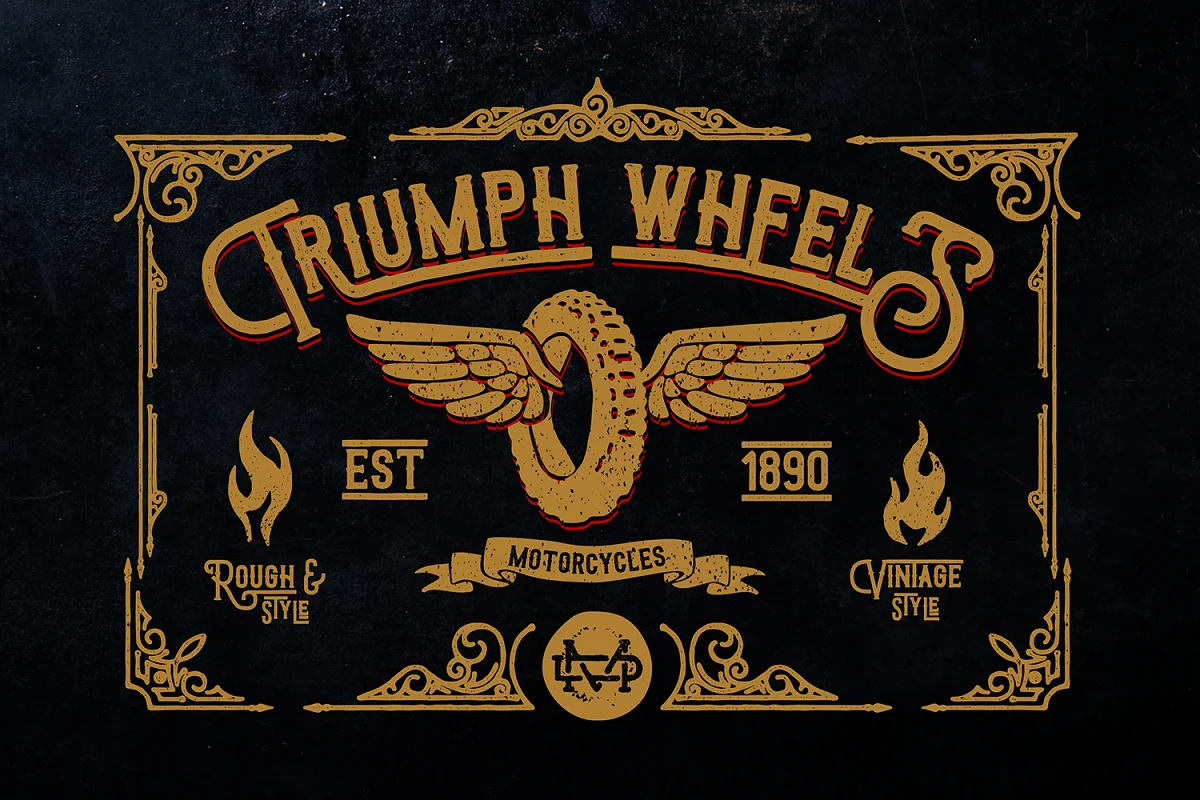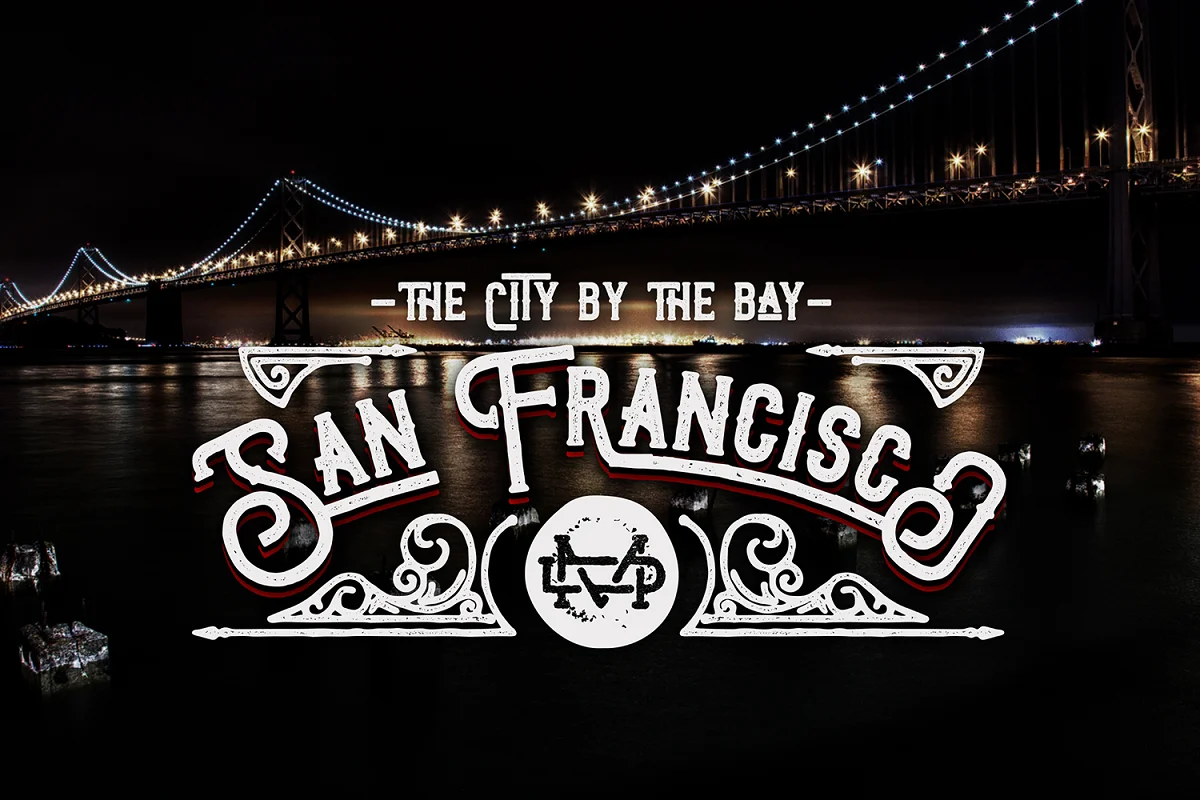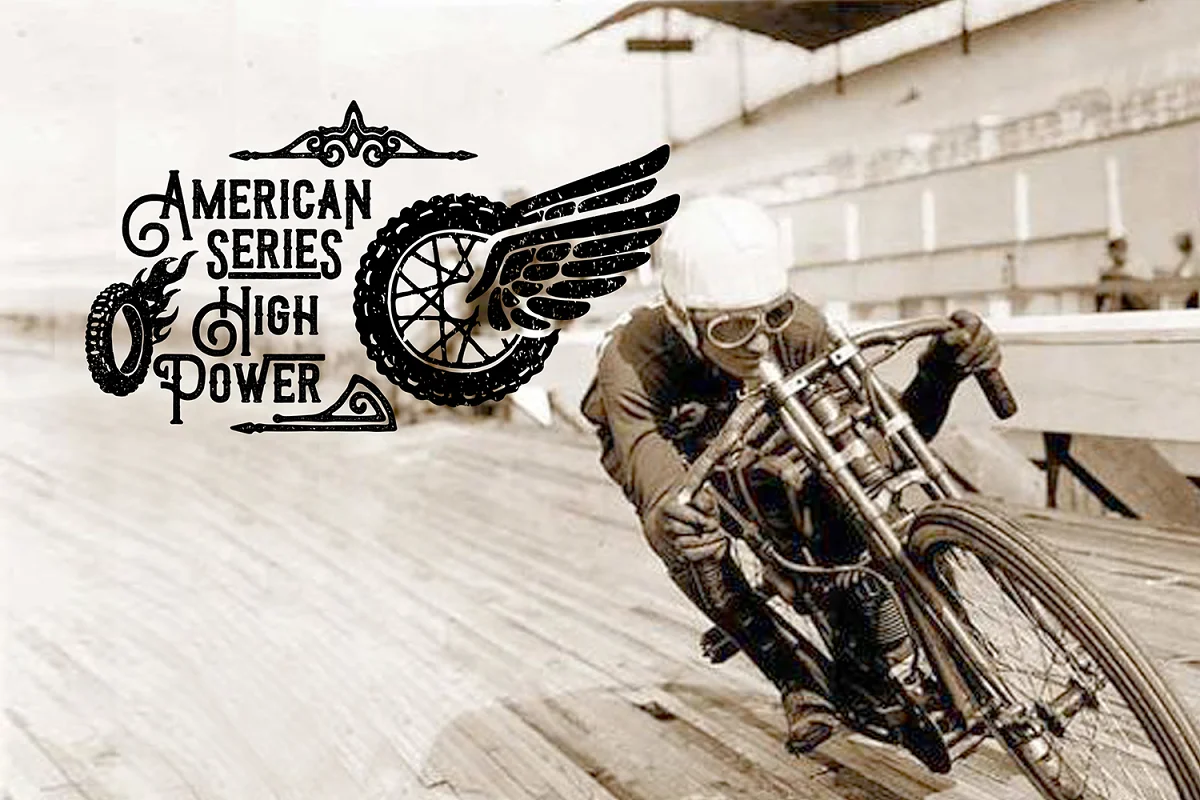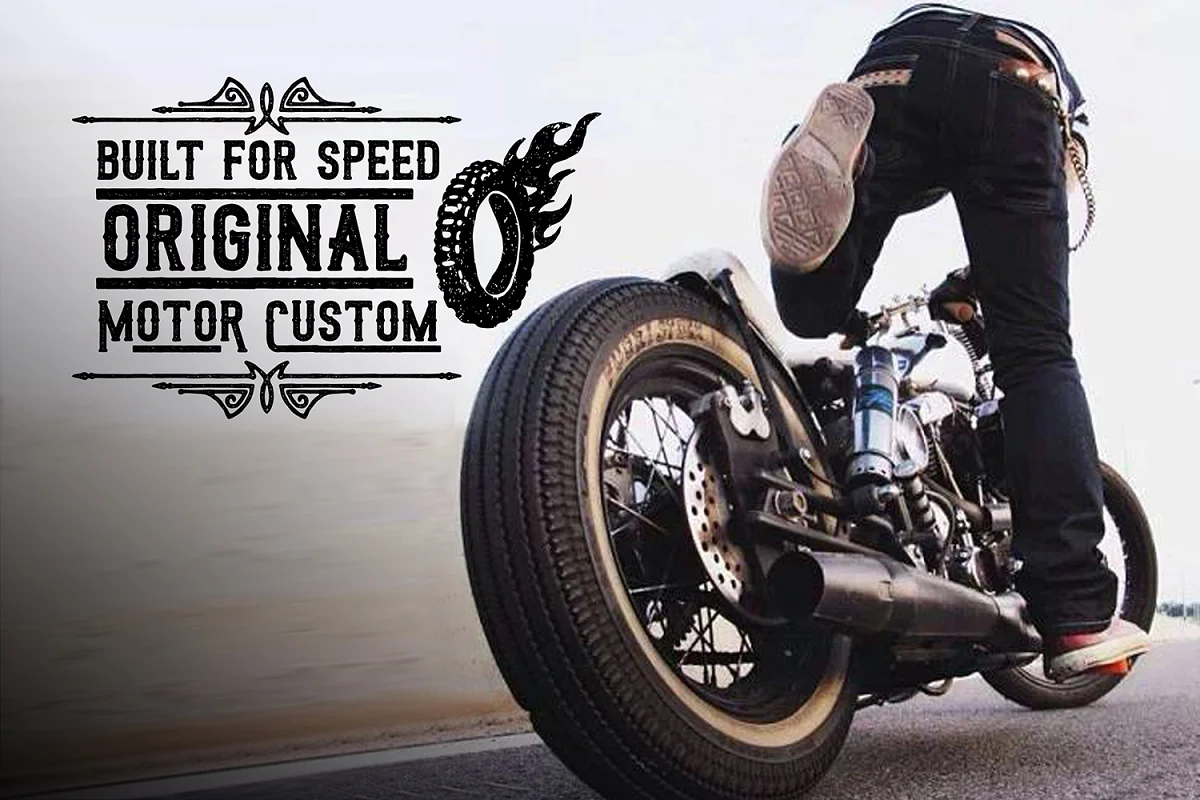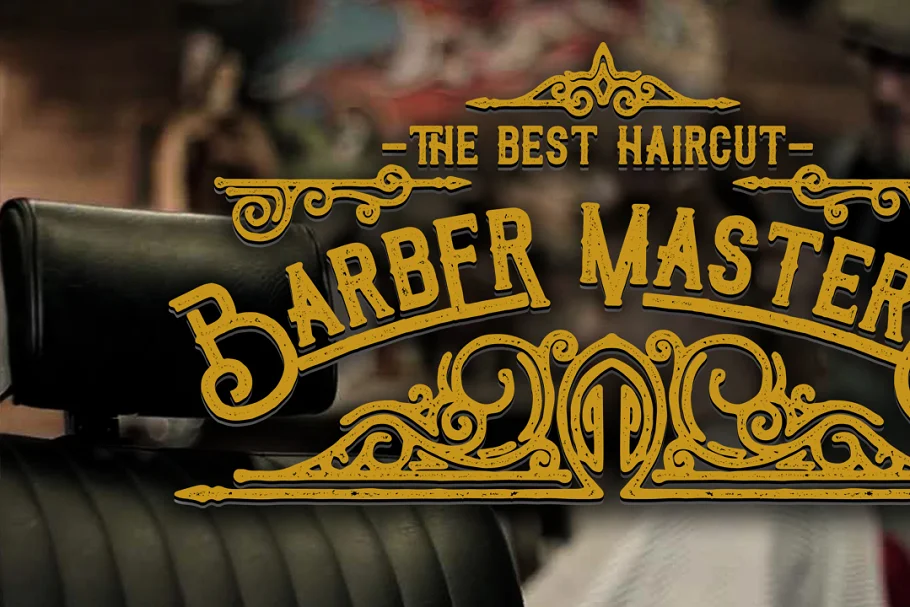
About the Triumph Wheels Font
Hello, I’m really excited to introduce, Triumph Wheels inspired by American style font with cool character! There are more than 350 glyphs in the font including.
Triumph Wheels is perfect for poster design, book covers, merchandise, fashion campaigns, newsletters, branding, advertising, magazines, greeting cards, album covers, and quote designs, and more.
- UPPERCASE
- lowercase
- Number & Symbol
- International Glyphs
- Alternative UPPERCASE
- Alternative lowercase
- Ligatures
- Swashes